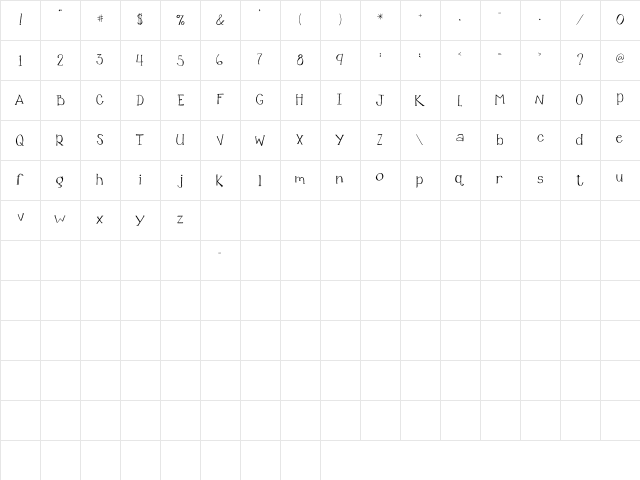
Complete 2Peas Glitter Girl 2Peas Glitter Girl glyph index. Displaying only characters natively supported by 2Peas Glitter Girl 2Peas Glitter Girl font.
2Peas Glitter Girl is a composed and adaptable typeface that performs quietly and consistently across a wide range of design contexts.